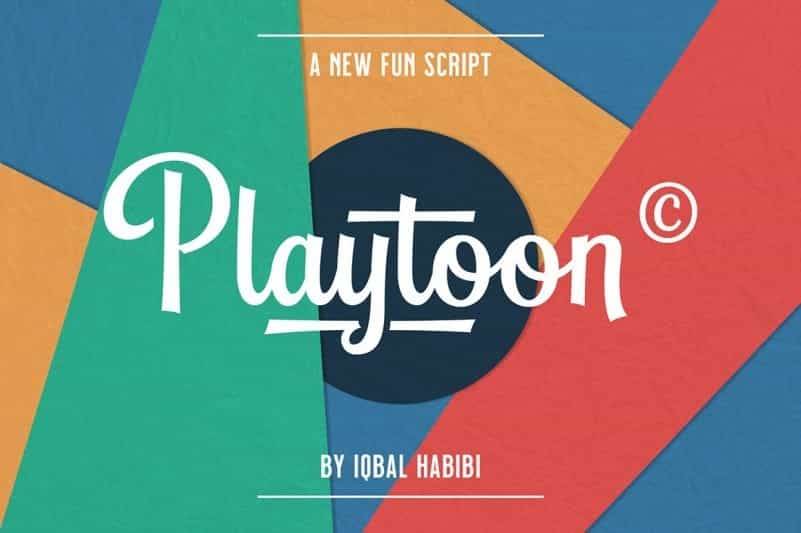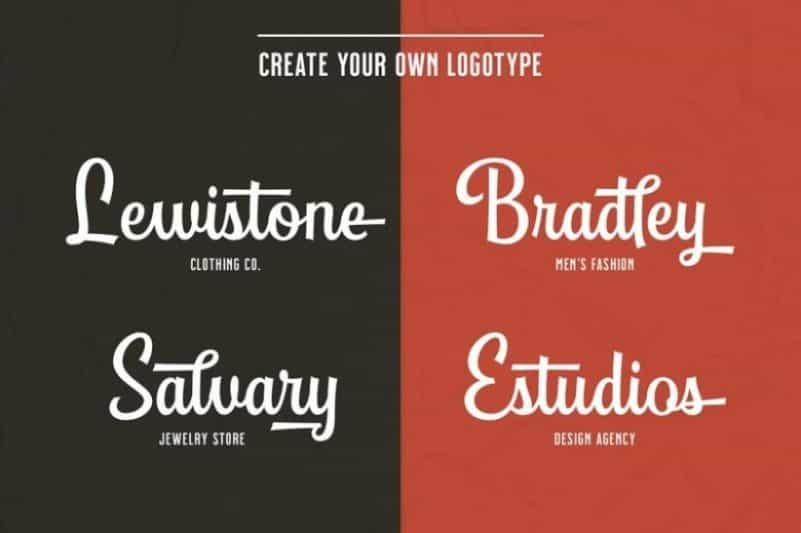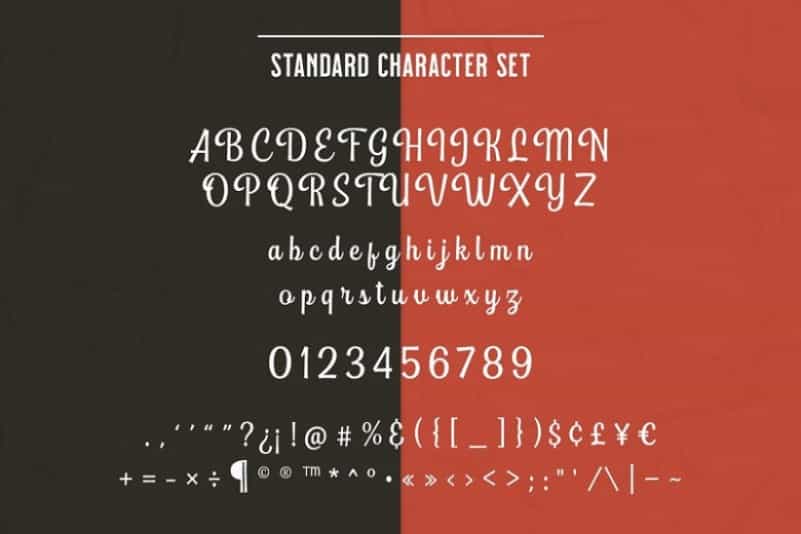
Playtoon is a fun script inspired by brush script font. There are alternative, versions and ligatures, so it’s great for lettering works calligraphy even. Logotype, t-shirt design, packaging design, signboard, poster, playtoon will give your design a cool offer. Most important of all-You will not be held back from enjoying the fun of finishing out your designs. This very idea makes life more interesting.